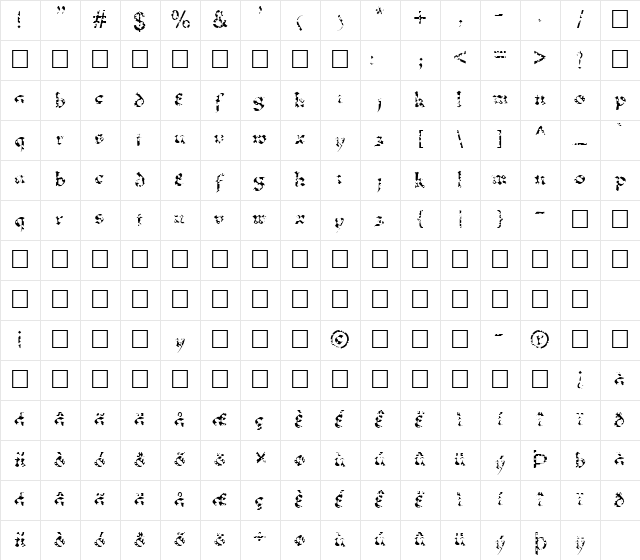
FZ JAZZY 33 HOLEY Normal
Design Context for FZ JAZZY 33 HOLEY
FZ JAZZY 33 HOLEY is a composed and adaptable typeface that performs quietly and consistently across a wide range of design contexts.